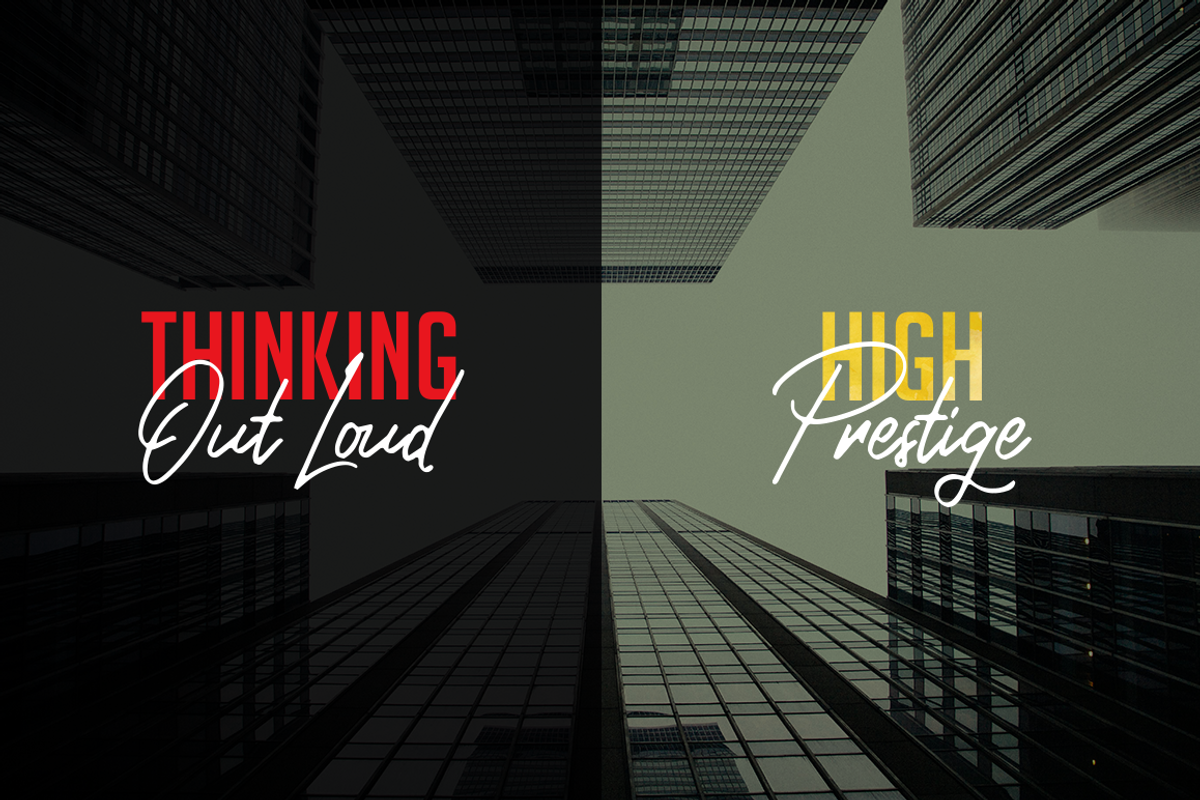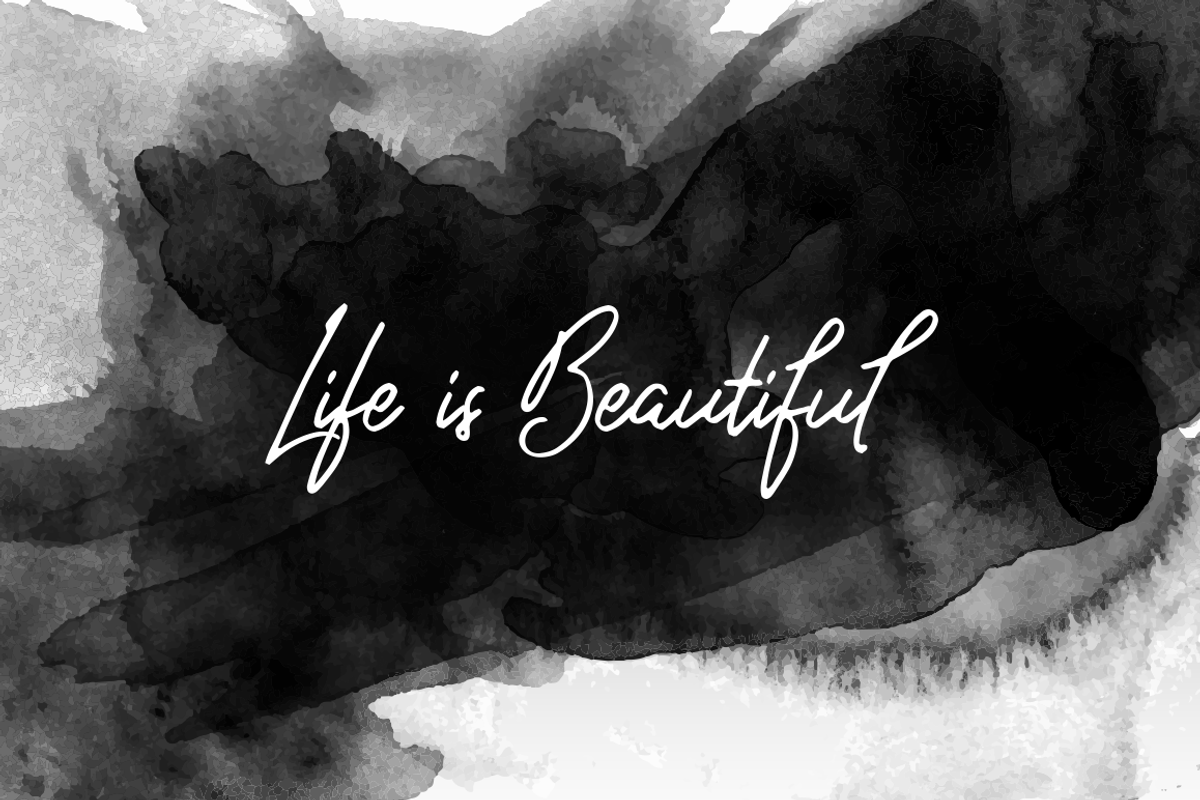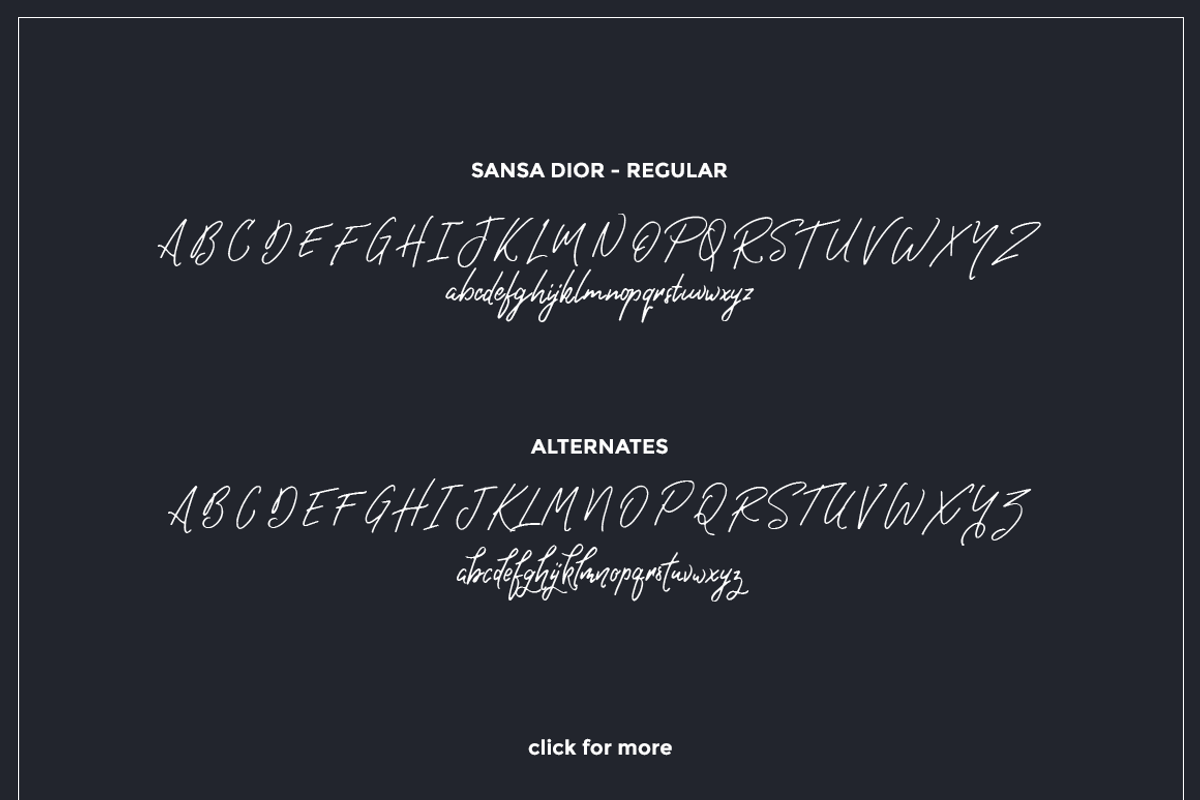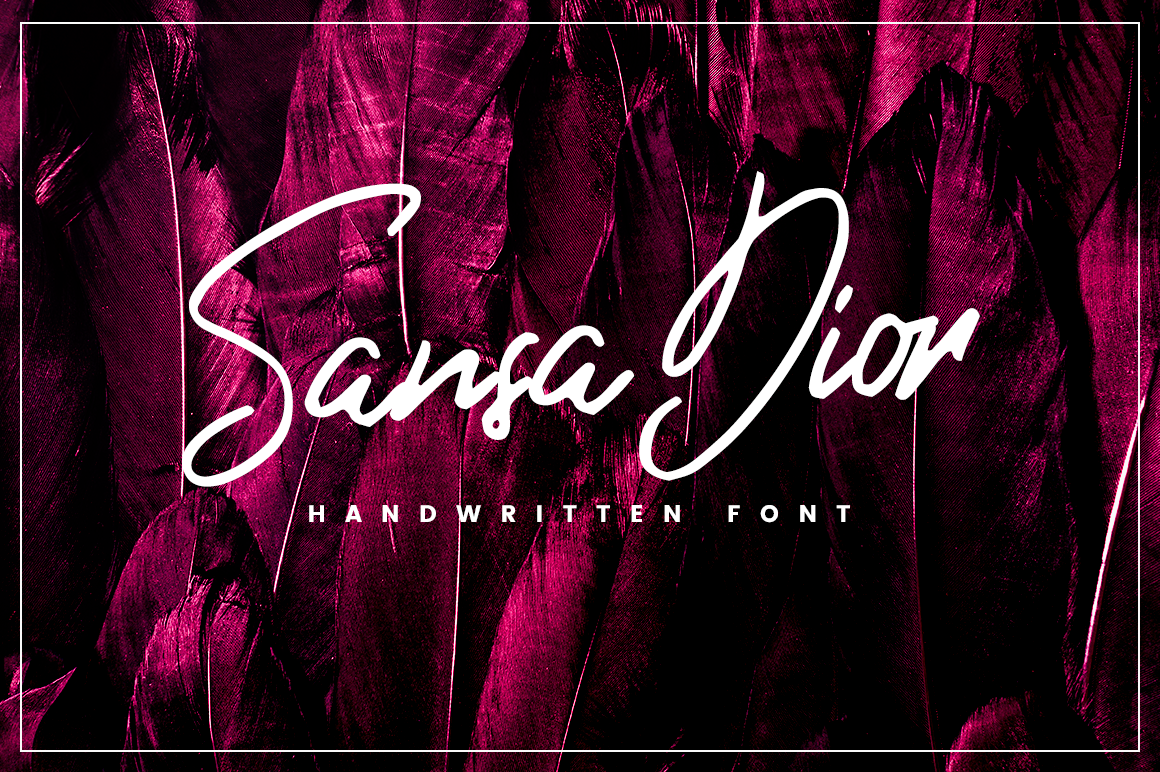
Sansa Dior - Signature Font
Sansa Dior Handwriting | Stylish Signature
Sansa Dior is casual and carefree brush script, designed to recreate the look of confident. It’s fresh and charming, based on real handwriting. This playful font is sure to seize attention and recall positivity and excitement. This handwritten script works best for fashion, beauty products, apparel and magazines. It could also be used for film, television, marketing, advertising and websites.
Sansa Dior handwriting style gives quite versatile look and will fit perfectly on applications where you want the design to appear genuine and full of personality.
- Sansa Dior Regular
- Sansa Dior Swash (Bonus)
- Uppercase/Lowercase
- Stylistic alternates
- Swashes (num. 1-7)